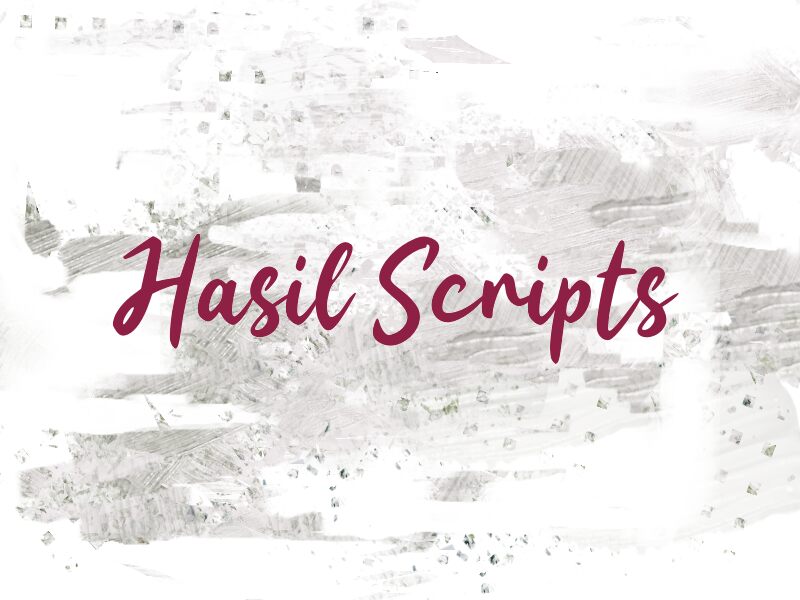
Hasil Scripts
Hasil Scripts font is a free handwritten font authored by wep with wide, smooth, and broad hand movements which give an expressive style to your designs. The energetic vibe of this typeface is due to the informal elegance created by its fluid motion similar to what you get when writing with a calligraphy pen.
Use Hasil Scripts in online blog content, casual typography works, page titles, product packaging design, motivational quotes or verses and posters for use in stores or hang on walls. Use it for social media posts and accounts such as in Instagram bios. Shop names and branding works are additional examples of applications this typeface can achieve successfully.